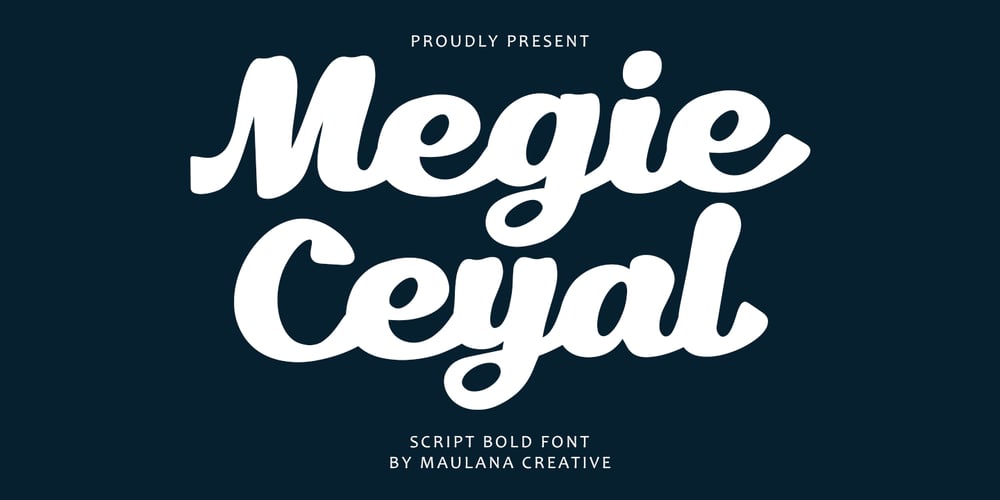
MC Megie Ceyal Font Family was designed by Gilang Maulana and published by Maulana Creative. MC Megie Ceyal contains 1 styles and family package options. Megie Ceyal bold script font. This font is good for logo design, Social media, Movie Titles, Books Titles, a short text even a long text letter and good for your secondary text font with signature or script typeface. Make a stunning work with Megie Ceyal bold script font.Cheers,Maulana Creative